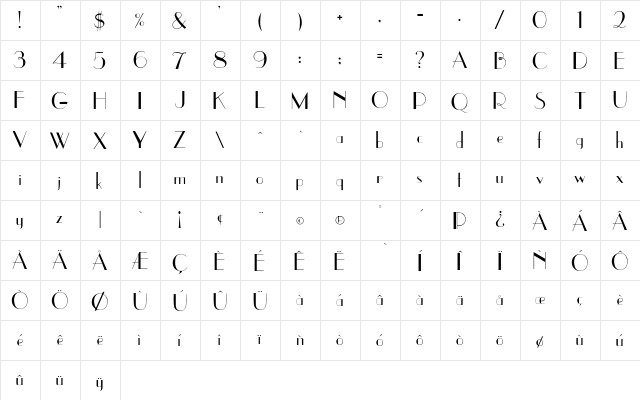
Downside Regular
Downside offers clean, dependable letterforms without strong stylistic allegiance, making it a practical choice for designers who need flexibility.